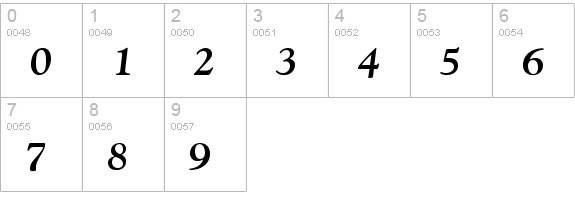
Goudy Oldstyle Std Bold Italic Font Details
Goudy Oldstyle Std Bold Italic is a strong, high-contrast, italic variant in the Goudy typeface family \xE2\x80\x94 well suited to headlines, attention-grabbing titles, and strong calls-to-action.
Goudy Oldstyle Std Bold Italic font exudes elegance and sophistication with its bold yet graceful letterforms. The strong strokes and delicate curls of this typeface make it a perfect choice for conveying a sense of timeless beauty and refinement in any design project. Whether used for headings, titles, or body text, Goudy Oldstyle Std Bold Italic commands attention and adds a touch of class to any layout. The best part? This exquisite font is available for free download at FontsMarket.com. Embrace the beauty and versatility of Goudy Oldstyle Std Bold Italic in your projects today and make a statement with every word you write.